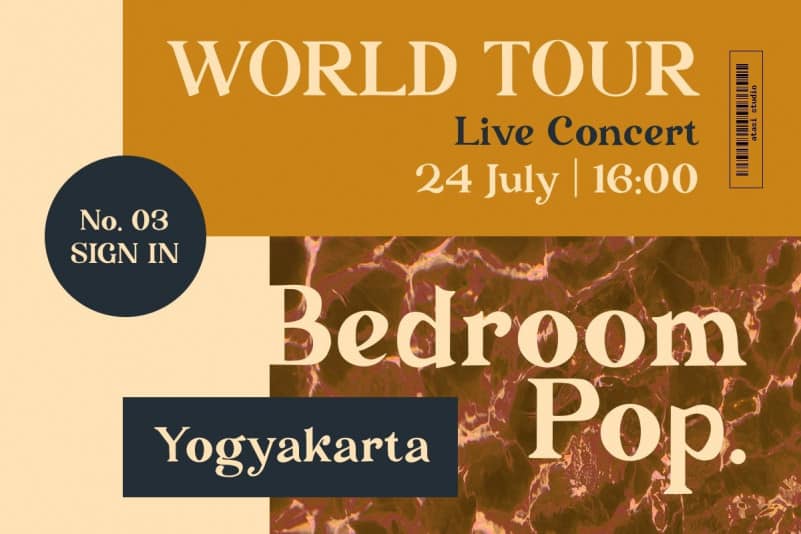
Genorict Serif Font
Genorict Serif Font is a classic and modern serif with a unique uppercase and lowercase. This font contains a bunch of essential ligatures that will make your presentation or logo even more stunning and stand out! It’s designed and shared by Atasi Studio. It’s a beautiful serif display, it’s suitable for logotype, headline, apparel, branding, invitation, thumbnail video, etc.